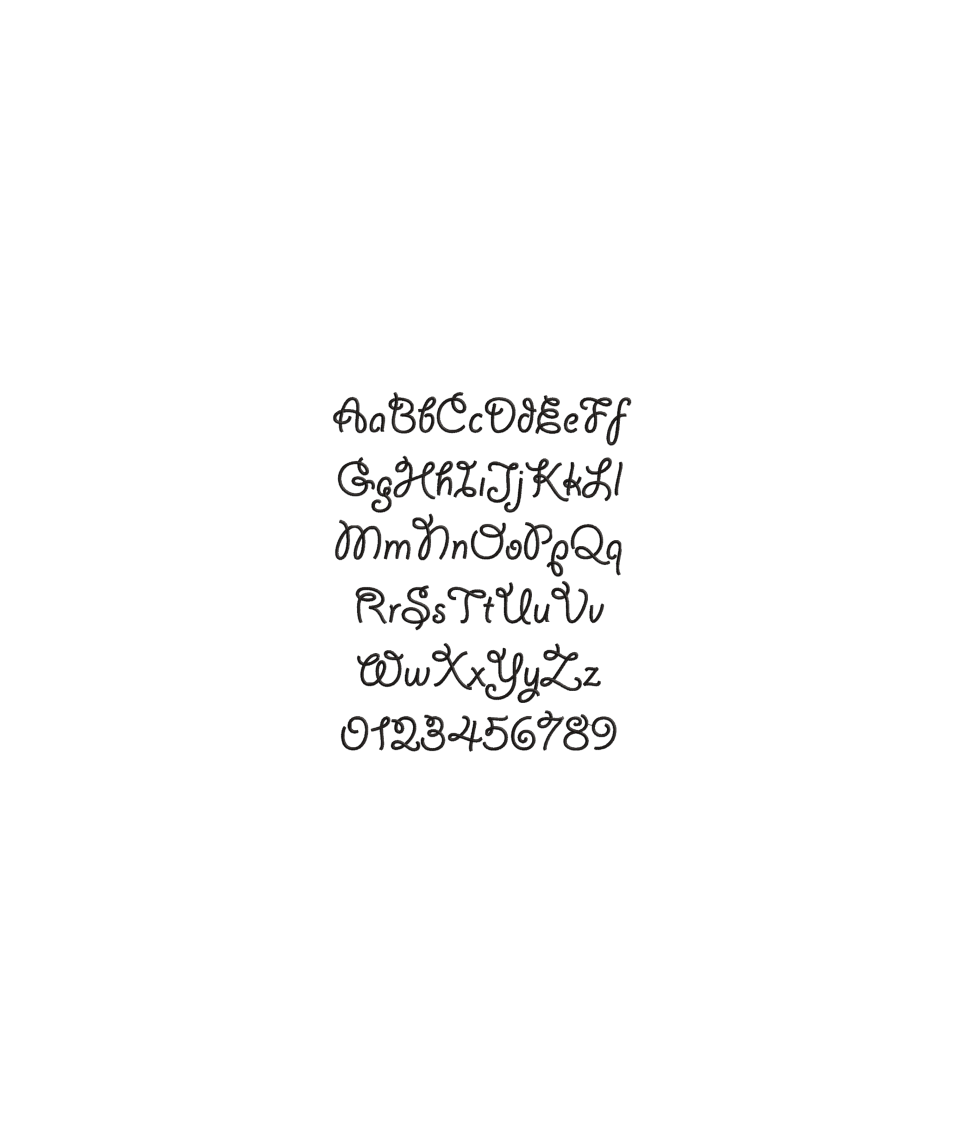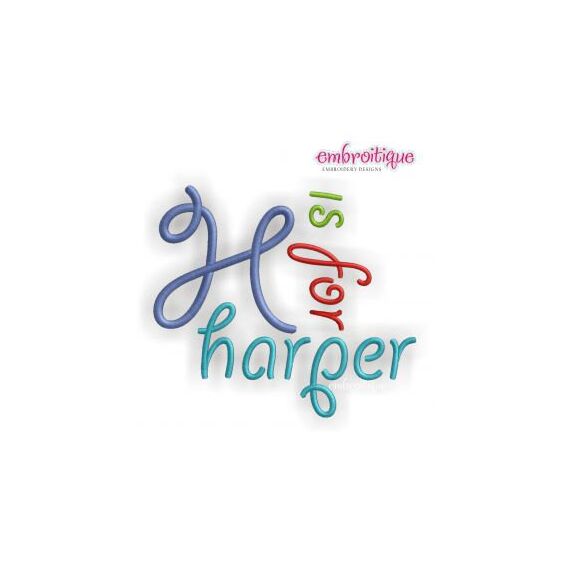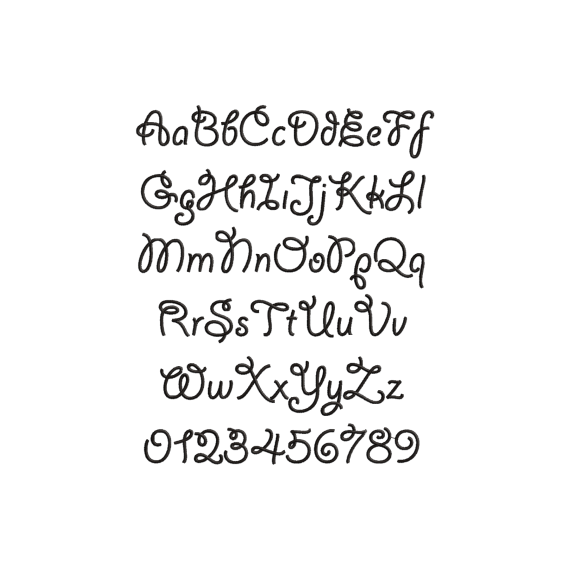
Harper Monogram Font - Great for boys and girls - BX Files Included
This versitle font will be a favorite for sure!  Enough curves to make it intersting - but not too girly... we just love this set for boys and girls! Perfectly paired with our pumpkin vine font frame which is sold separately.